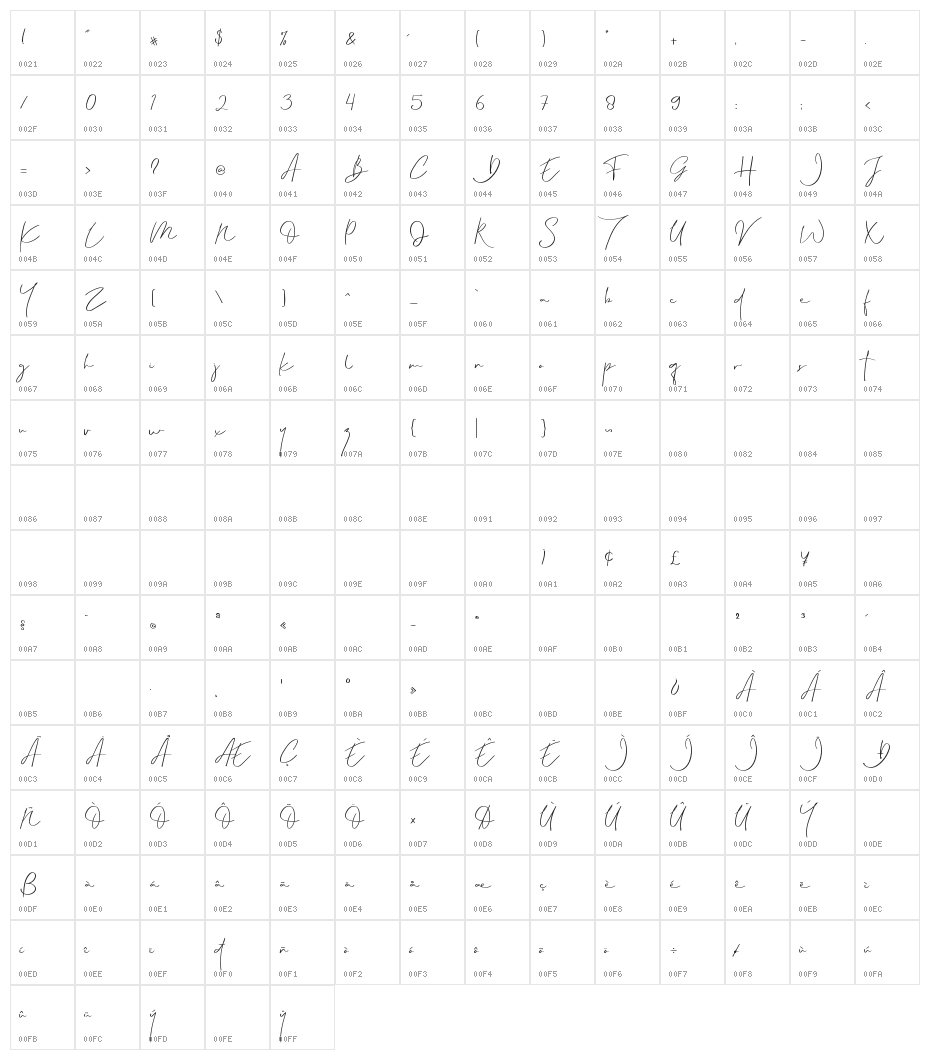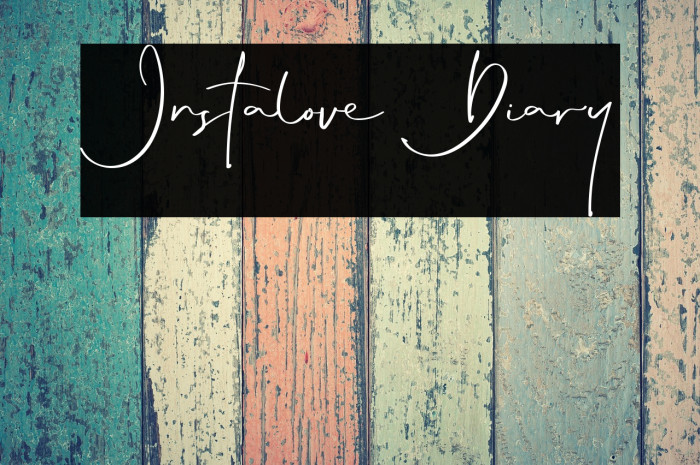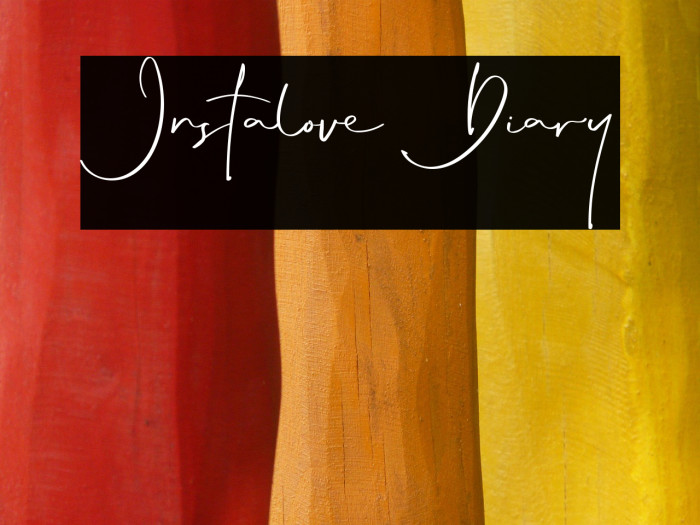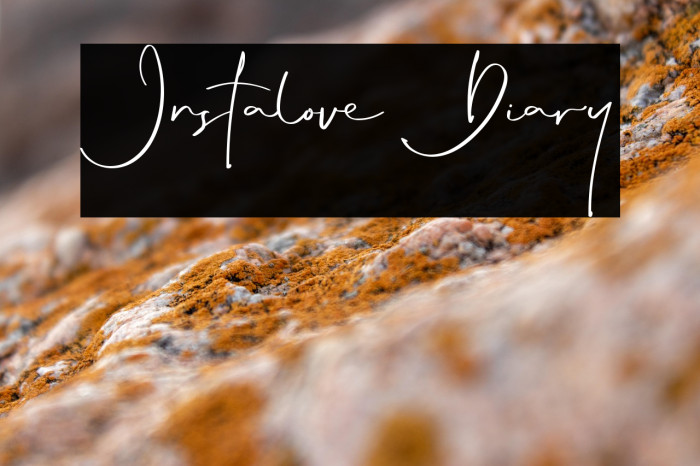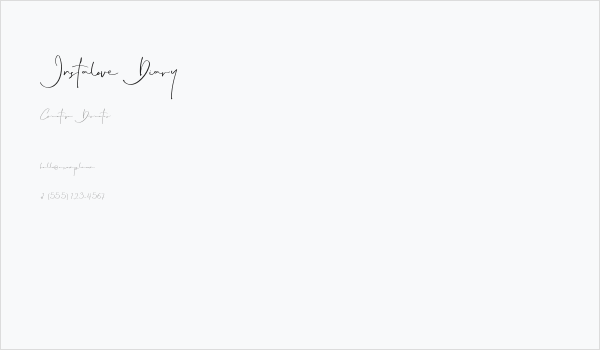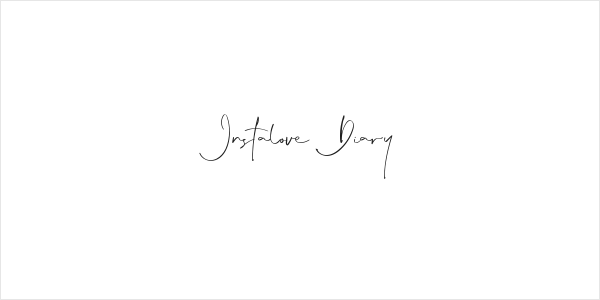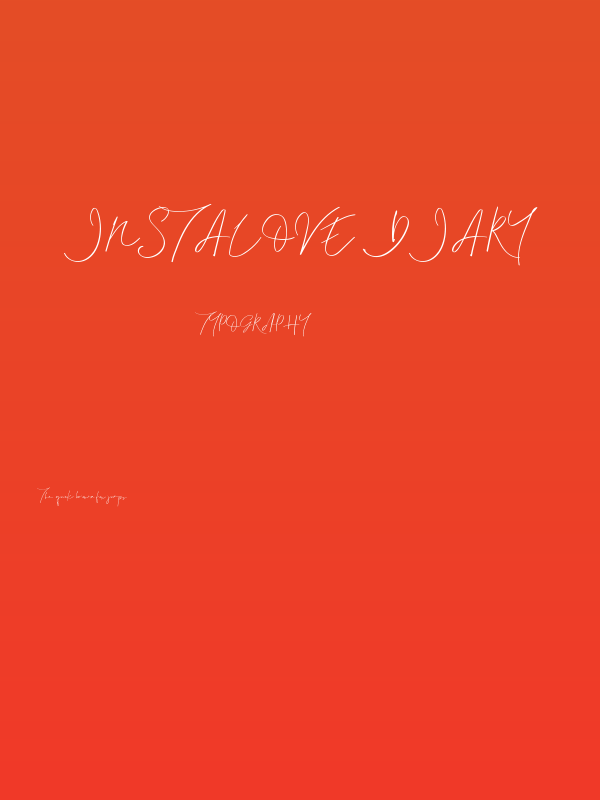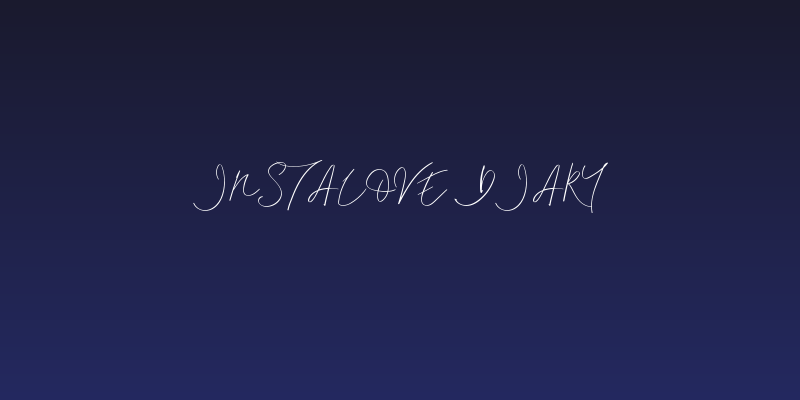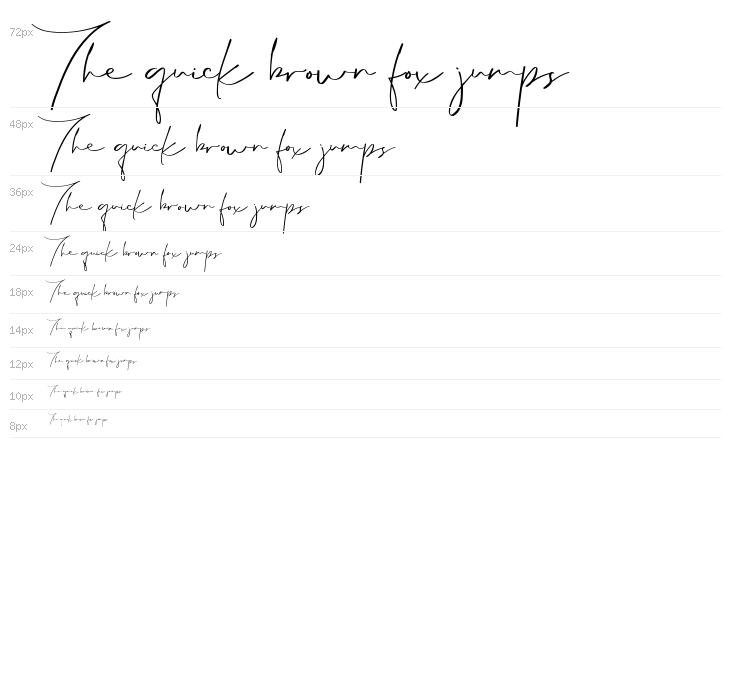
Instalove Diary Font
Instalove Diary Description
This font features a flowing, handwritten style with elegant, elongated strokes and a casual yet sophisticated appearance. The uppercase letters are tall and slightly slanted, giving a sense of movement and grace. The lowercase letters maintain a consistent flow, with smooth connections between characters, enhancing its cursive nature. Numbers and special characters are designed to match the overall aesthetic, with a playful yet refined touch. The thin lines and delicate curves make it ideal for projects that require a personal, intimate feel.
| Proposed Projects | Ideal for wedding invitations, personal diaries, greeting cards, and branding that requires a personal touch. |